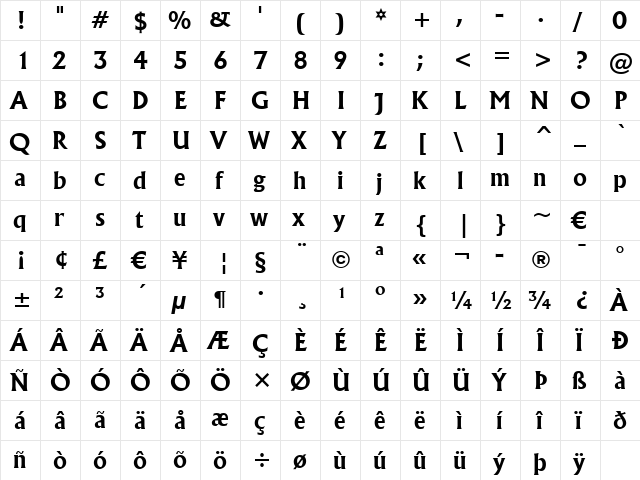
Flareserif821 Lt BT Bold
Design Context for Flareserif821 Lt BT Typeface
Flareserif821 Lt BT brings classic typographic sensibility to the table — its serifs and measured letterforms reflect centuries of print heritage. Its bold stroke weight gives it real presence on the page.